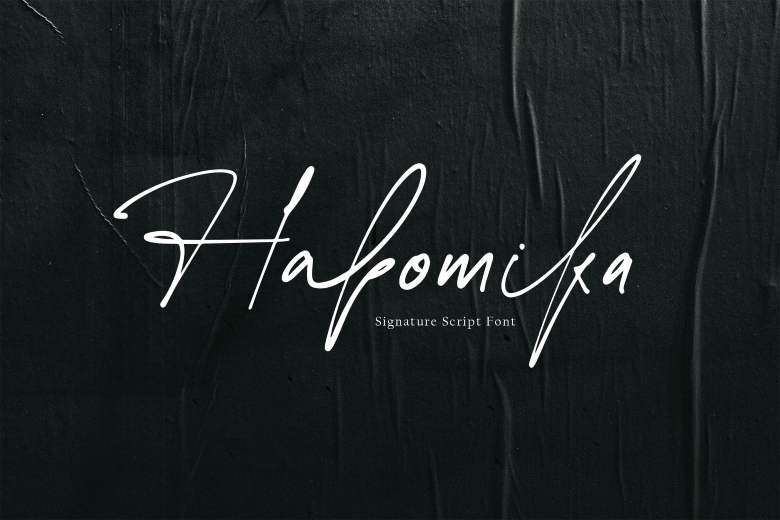
Habomika Font
Introducing Habomika – a striking new script font you will love to incorporate to your scripts. Created with unique character strokes, Habomika is viable as an artistic piece and precisely for the progression of the aesthetic visual aspect of any design endevour. This font is world font, supporting multiple languages, comes with stylistic alternatives, swash, and ligatures all contained in one font file format: OTF and TTF are provided.
Habomika Handwritten Script Font